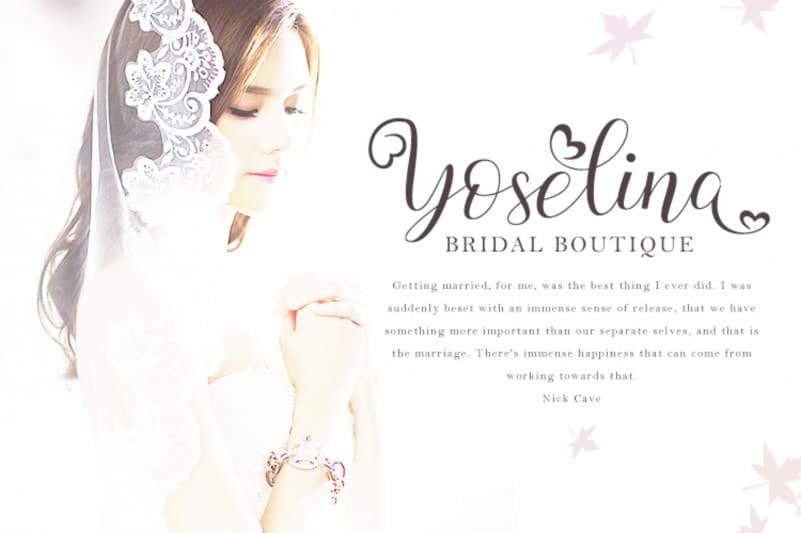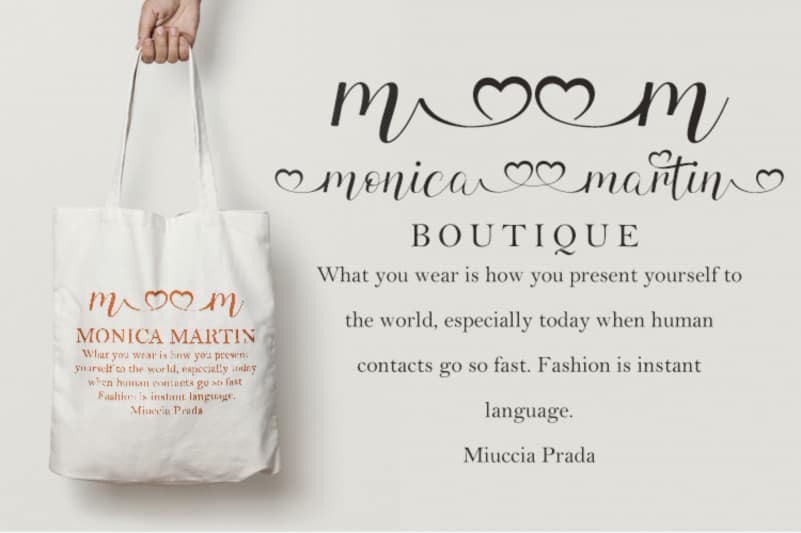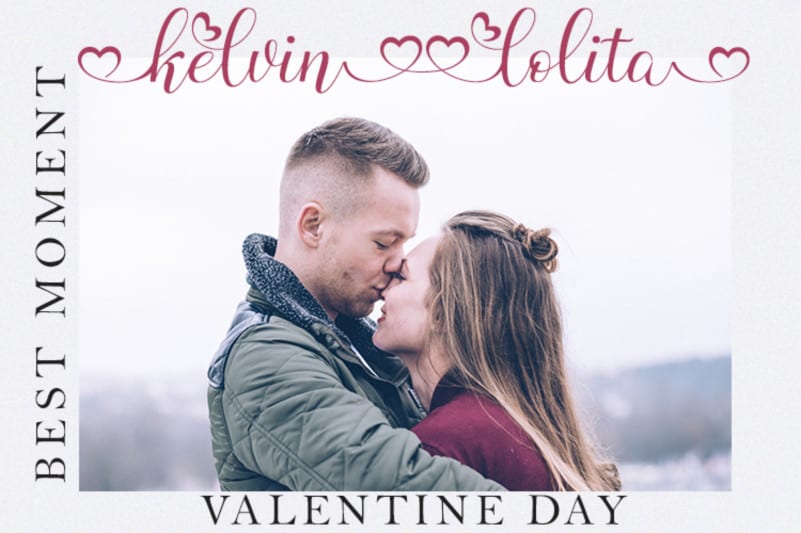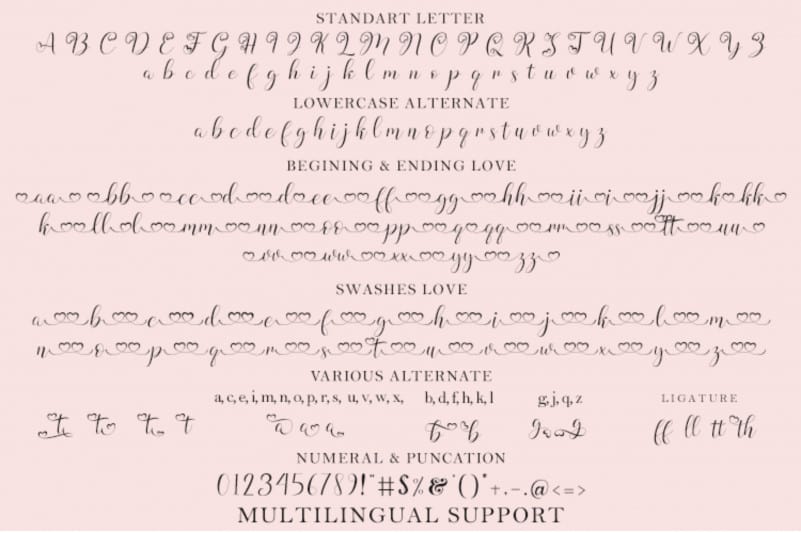
Magdolina Calligraphy Font
Magdolina Calligraphy Font is a romantic and fashionable script font. It looks ravishing on wedding invitations, thank you cards, quotes, greeting cards, logos, business cards and every other design which needs a customized touch.